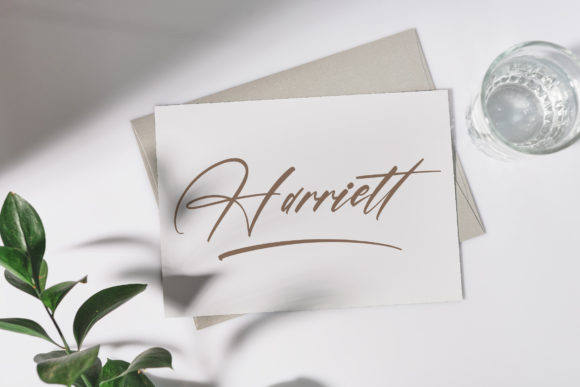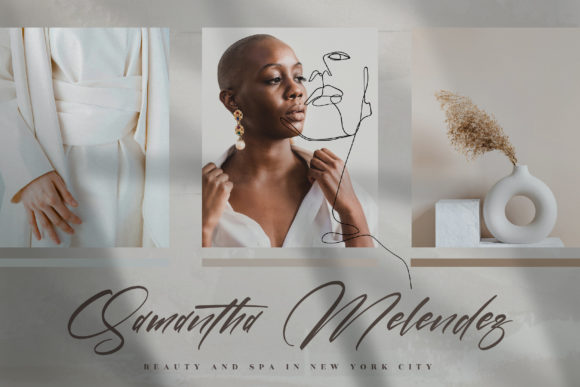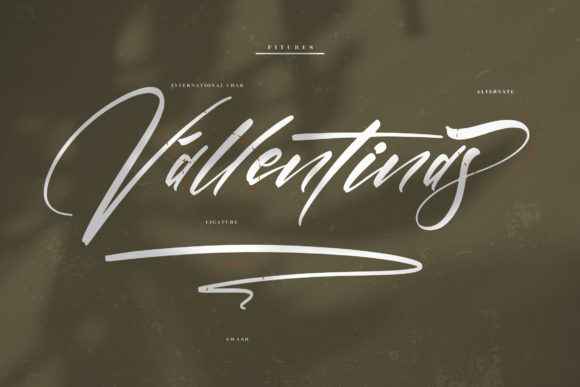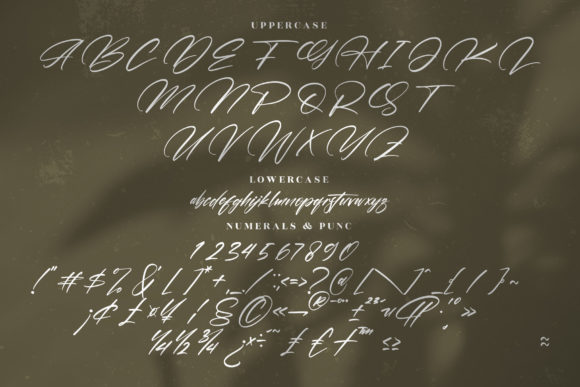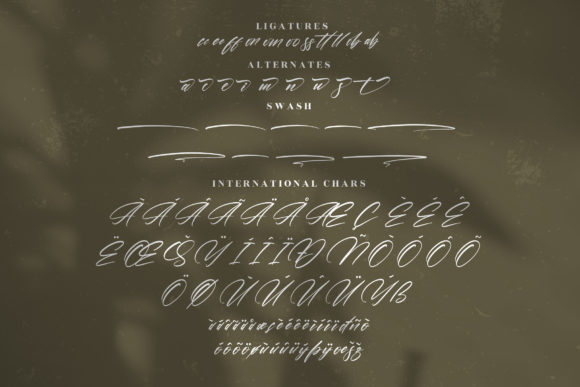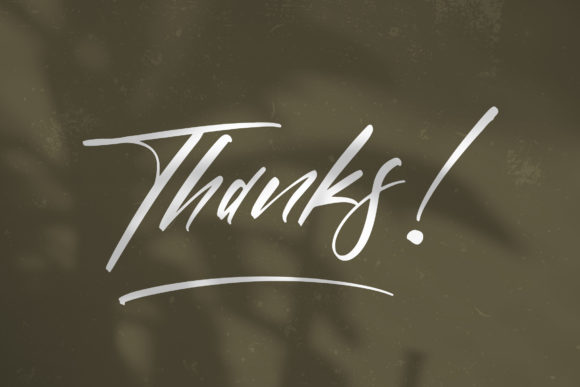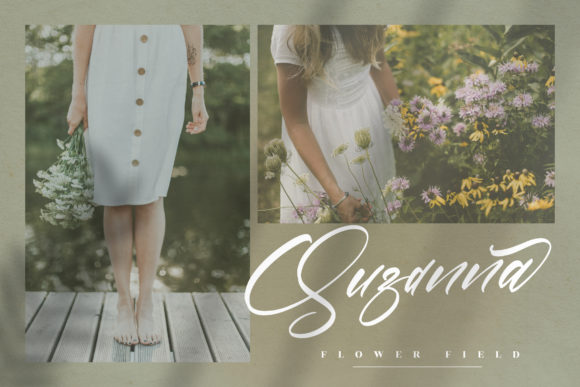
Hallison Font
About Hallison Font
Hallison is a superbly carved script font that looks so natural and exquisite! Use it for makeup branding, skincare companies, fashion magazines, homeware designs, and other projects that need a luxurious and authentic vibe!